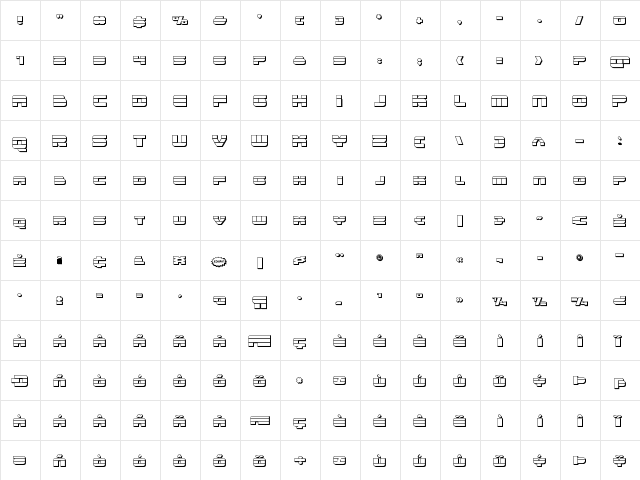
Quicken 3D Regular
Design Context for Quicken 3D Typeface
Quicken 3D is a composed and adaptable typeface that performs quietly and consistently across a wide range of design contexts.